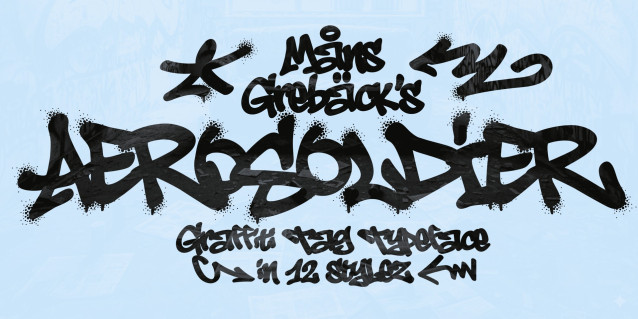
Aerosoldier Font
Aerosoldier Font is a bold and raw graffiti tag typeface, bursting with energy and streetwise attitude.With twelve distinct styles—ranging from clean to drippy and sprayed—Aerosoldier captures the layered textures and intensity of graffiti culture.